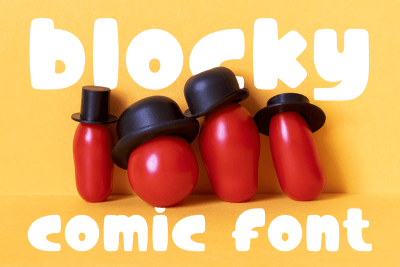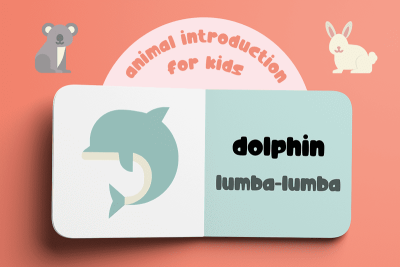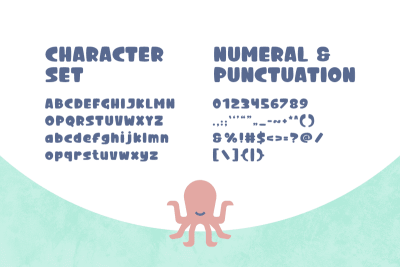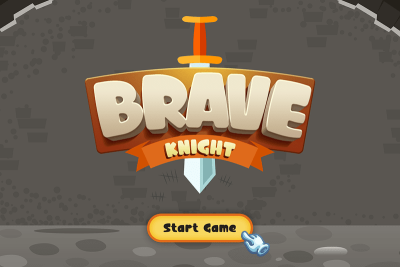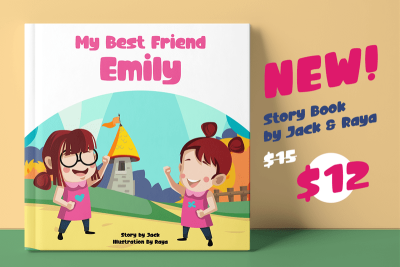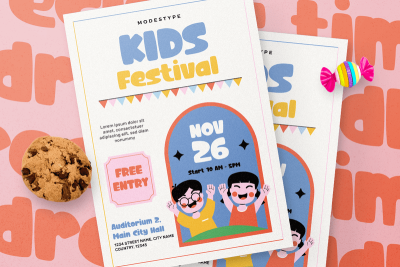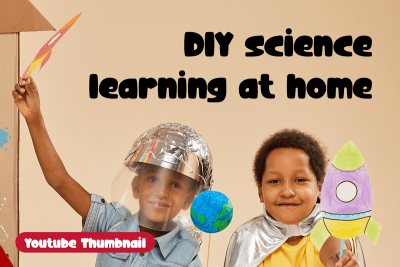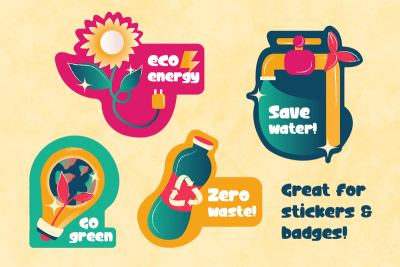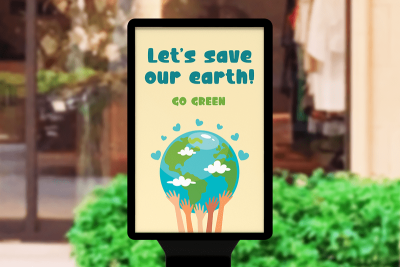
Cute Font Popping Cute
Popping Cute
Cute Font Popping Cute is a delightful typeface that brings a fun, underwater charm to any project. Inspired by the playful energy of ocean life, Popping Cute features bright colors and rounded, puffy letters that feel like they’re floating. Each character has a balloon-like texture, creating a sense of lightness perfect for designs with a cheerful vibe. With vibrant colors and soft edges, this font feels warm and friendly, making it suitable for audiences of all ages.
Furthermore, the underwater theme is clear in every detail. Bubbly, spacious letter shapes and oceanic elements enhance the font’s aquatic feel. Cute Font Popping Cute invites viewers to dive into a world of fun. Additionally, the bold, rounded shapes ensure readability, even at smaller sizes, making it ideal for both digital and print use. Thus, this font captures the playful essence of marine life, adding a touch of whimsy and adventure to any text.
Overall, Cute Font Popping Cute works well in projects that aim to communicate joy, fun, and a carefree spirit. It’s perfect for designs that target children or family audiences, adding an uplifting vibe. The font’s bold look also suits interactive content, where readability and engagement are key. Its aquatic-inspired aesthetic transforms text into an eye-catching, visual experience.
Cute Font Popping Cute Ideal for
Cute Font Popping Cute is ideal for designers, educators, and brands wanting to convey a playful, underwater theme. Notably, its friendly style and oceanic look make it a great choice for children’s content, like storybooks, learning materials, or interactive apps. It’s also perfect for brands aimed at kids or families, including toy companies, marine-themed parks, or children’s clothing lines. The font’s soft, puffy look creates a welcoming feel that resonates with kids and parents alike.
Moreover, educators and content creators focused on engaging young audiences will find this font useful. The underwater vibe and bold style make it perfect for worksheets, classroom decor, or educational games. As a result, teachers can create an inviting environment that keeps children interested in learning. The marine theme also adds a sense of discovery, making it ideal for science content on oceans or nature.
Additionally, social media managers and digital creators working with family-friendly content can benefit from Cute Font Popping Cute. Its eye-catching design works well for thumbnails, banners, and video titles, especially on crowded platforms. The rounded, bubbly letters are visible even on small screens, making it ideal for promoting events, content, or products aimed at younger audiences. Overall, this font is adds a joyful, whimsical touch, turning any message into a fun, memorable experience.
Cute and friendly, with a playful attitude. Popping Cute will bring everything into the world of happiness.